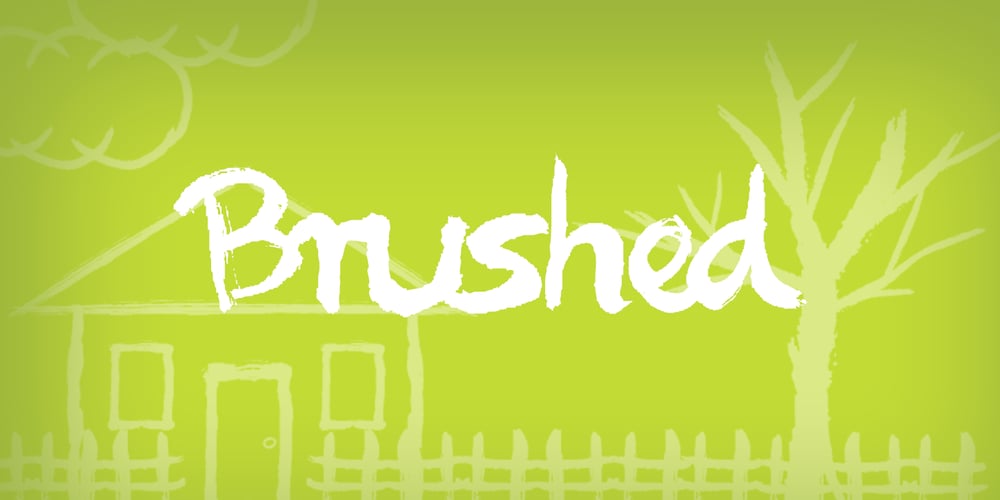
Brushed
Brushed font
Brushed Font Family was designed by Domenico Mazza and published by d[esign]. Brushed contains 1 styles and family package options. Let this free-flowing brush script add a little hand painted goodness to your works. Cheaper than a bucket of paint, use Brushed to add brush painted letters to your works or manipulate the many glyphs in this font using image editing software to create art as shown above.